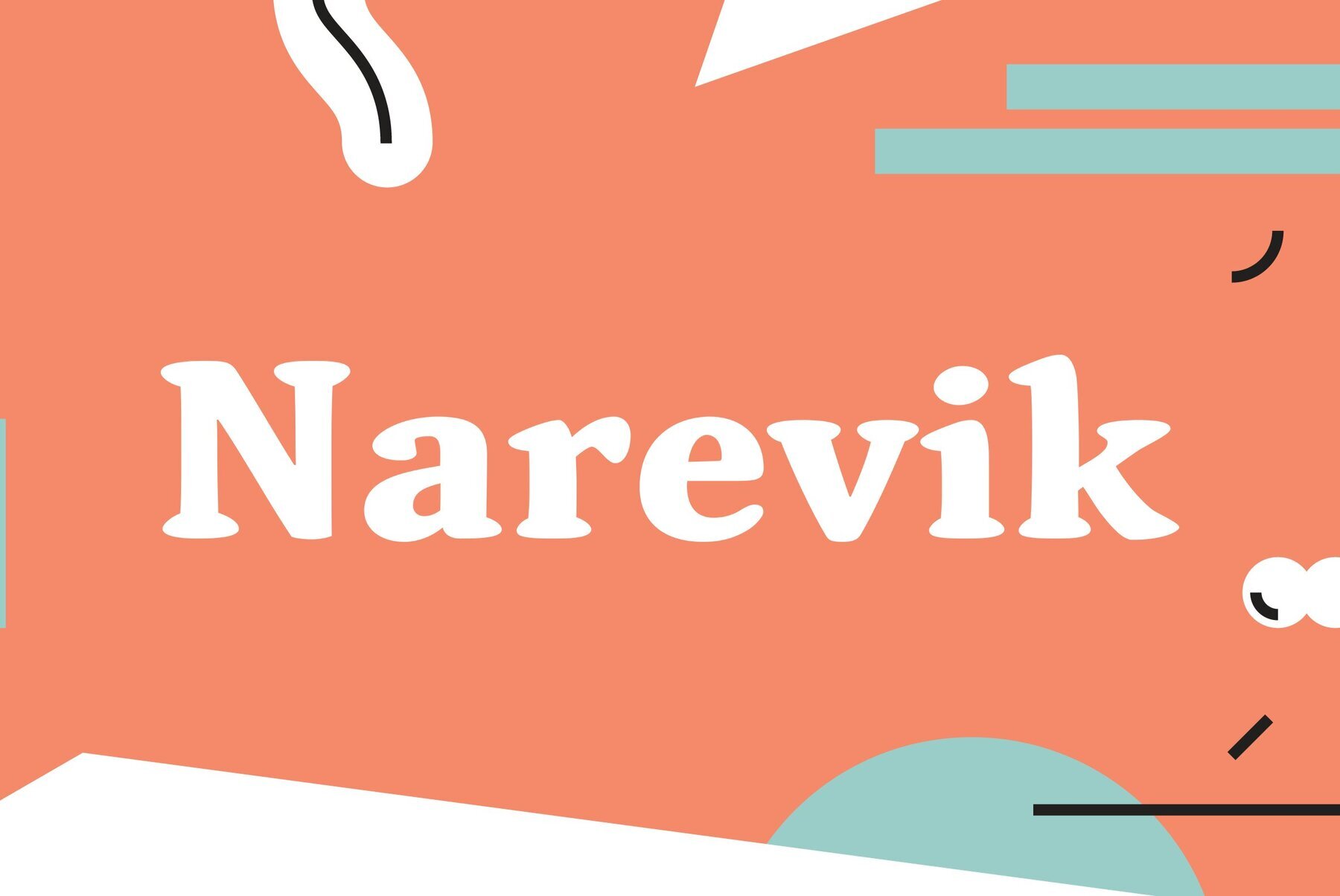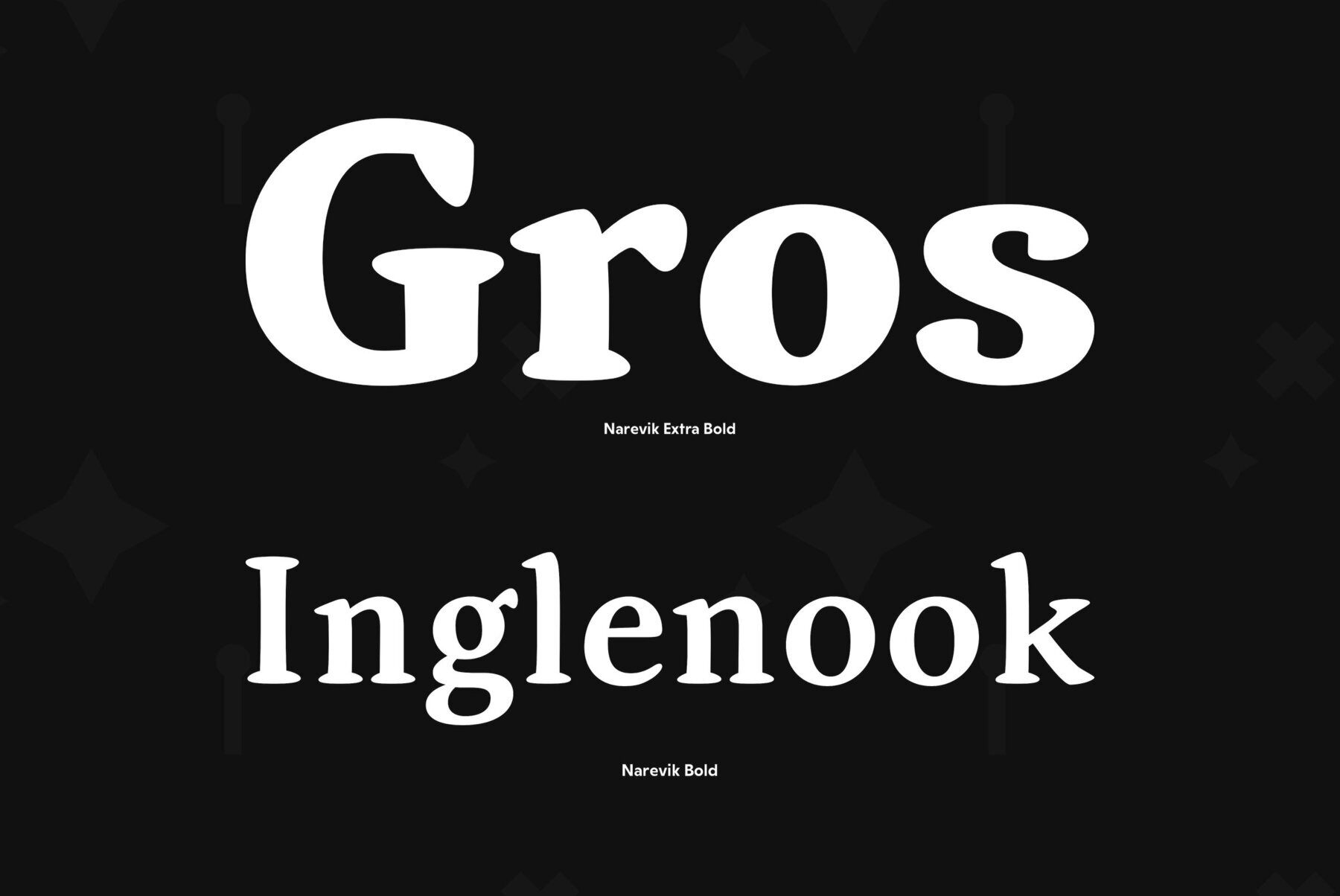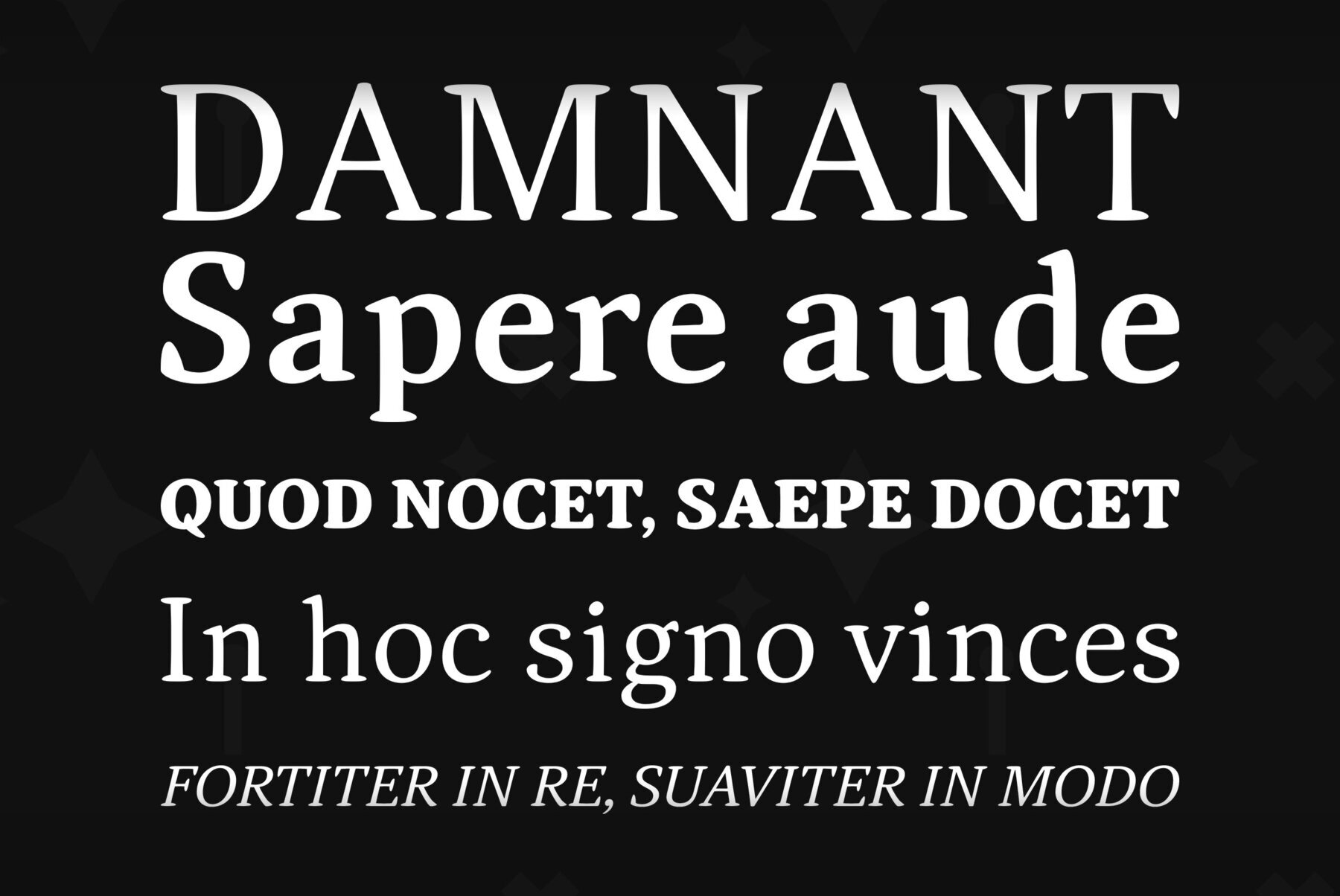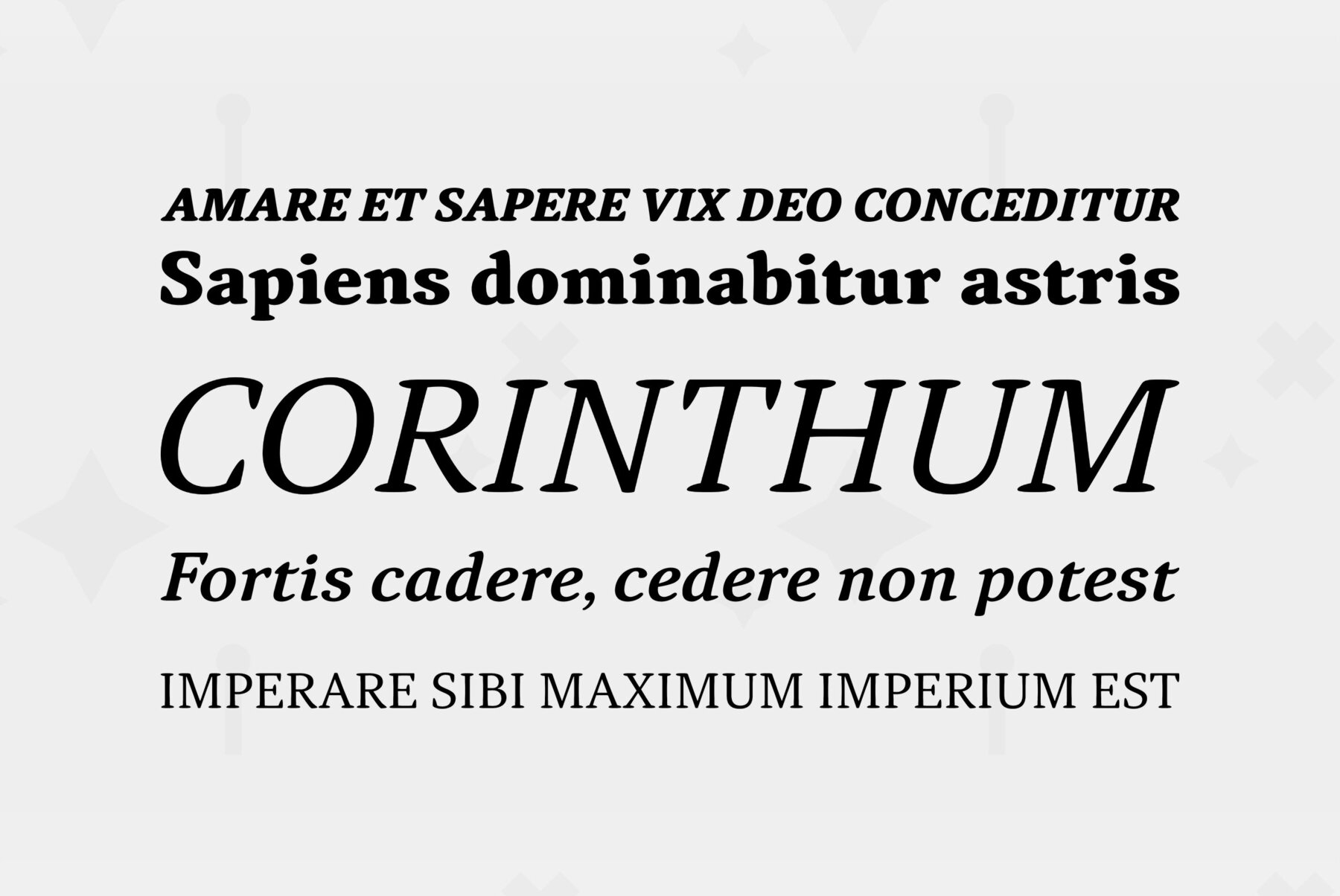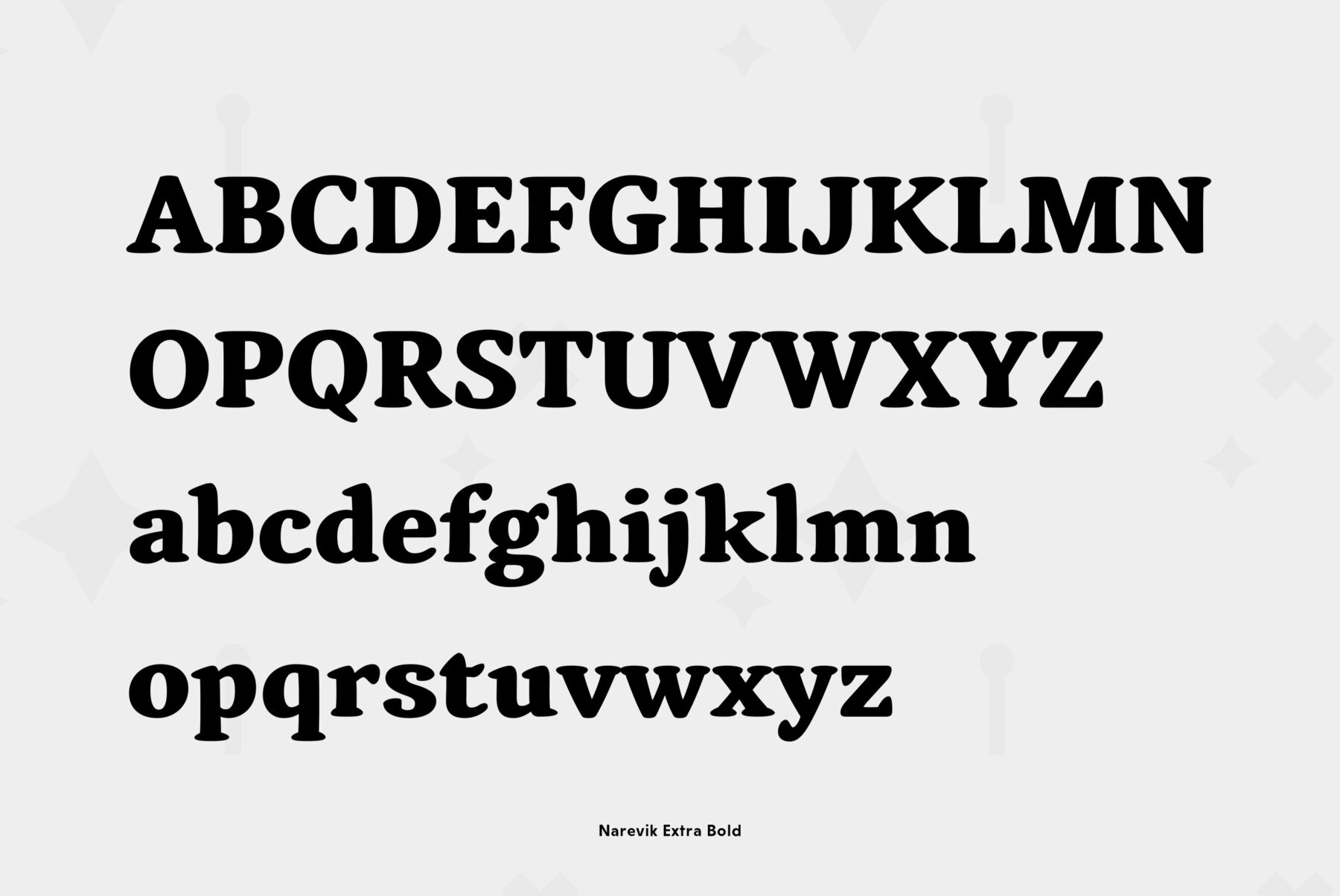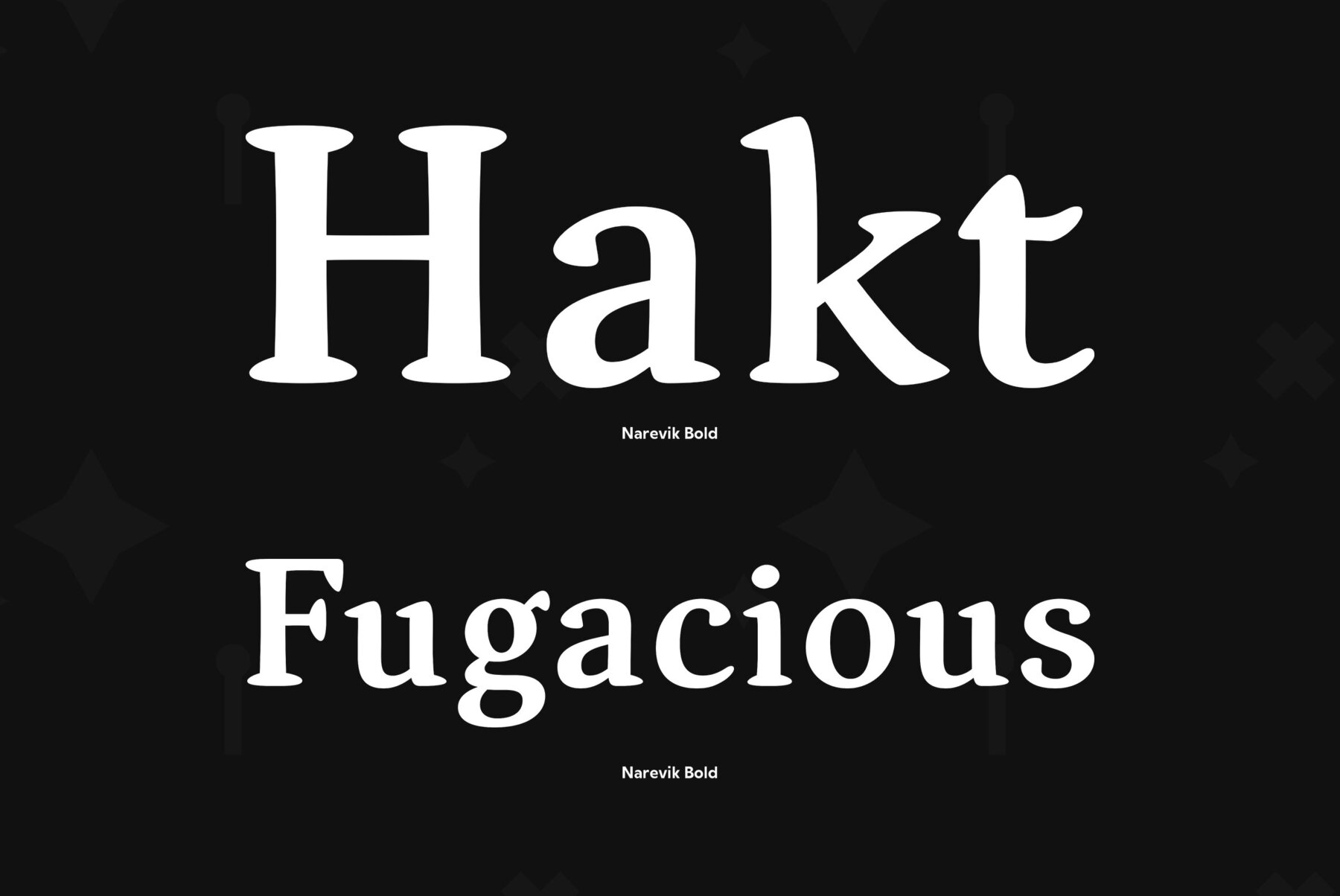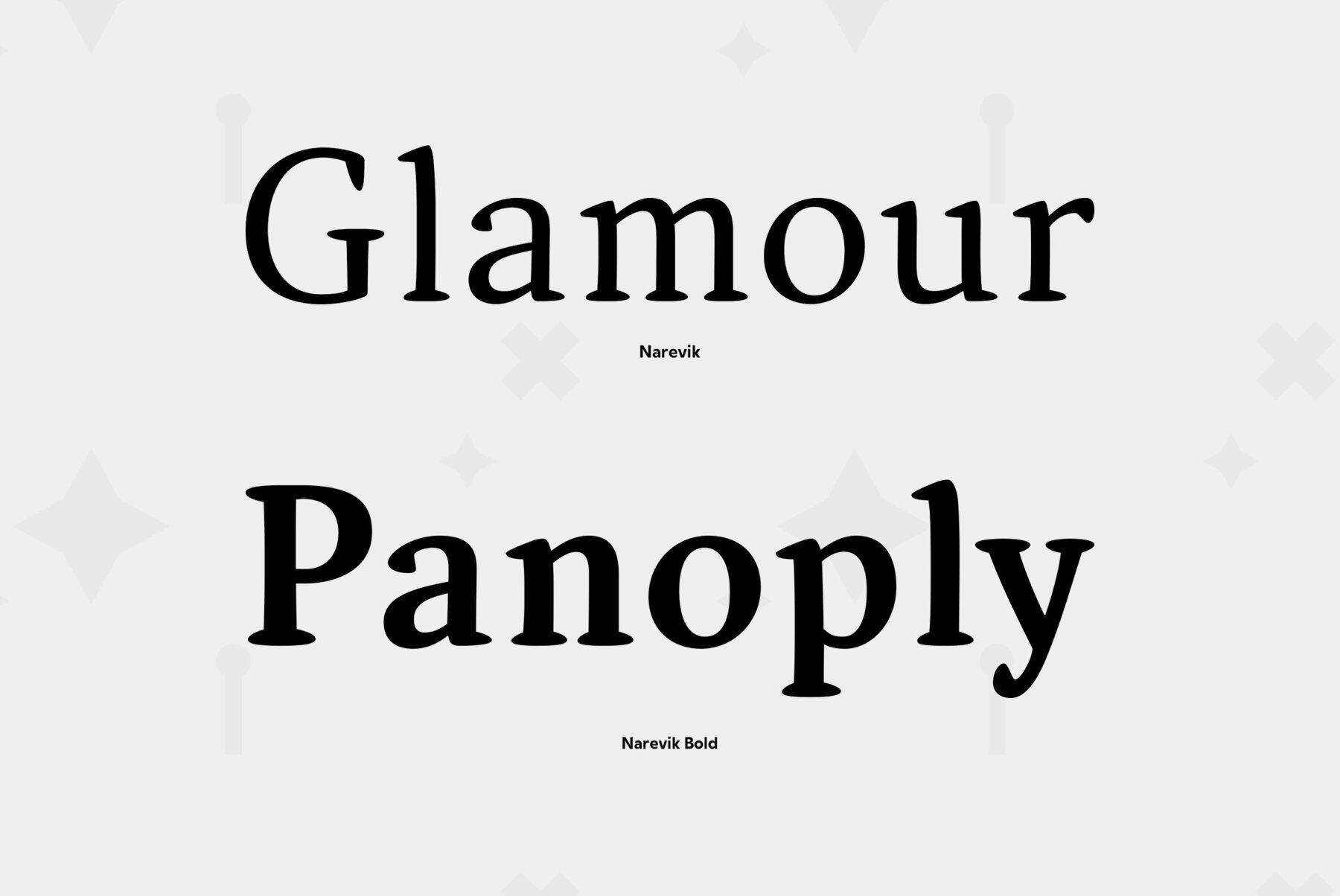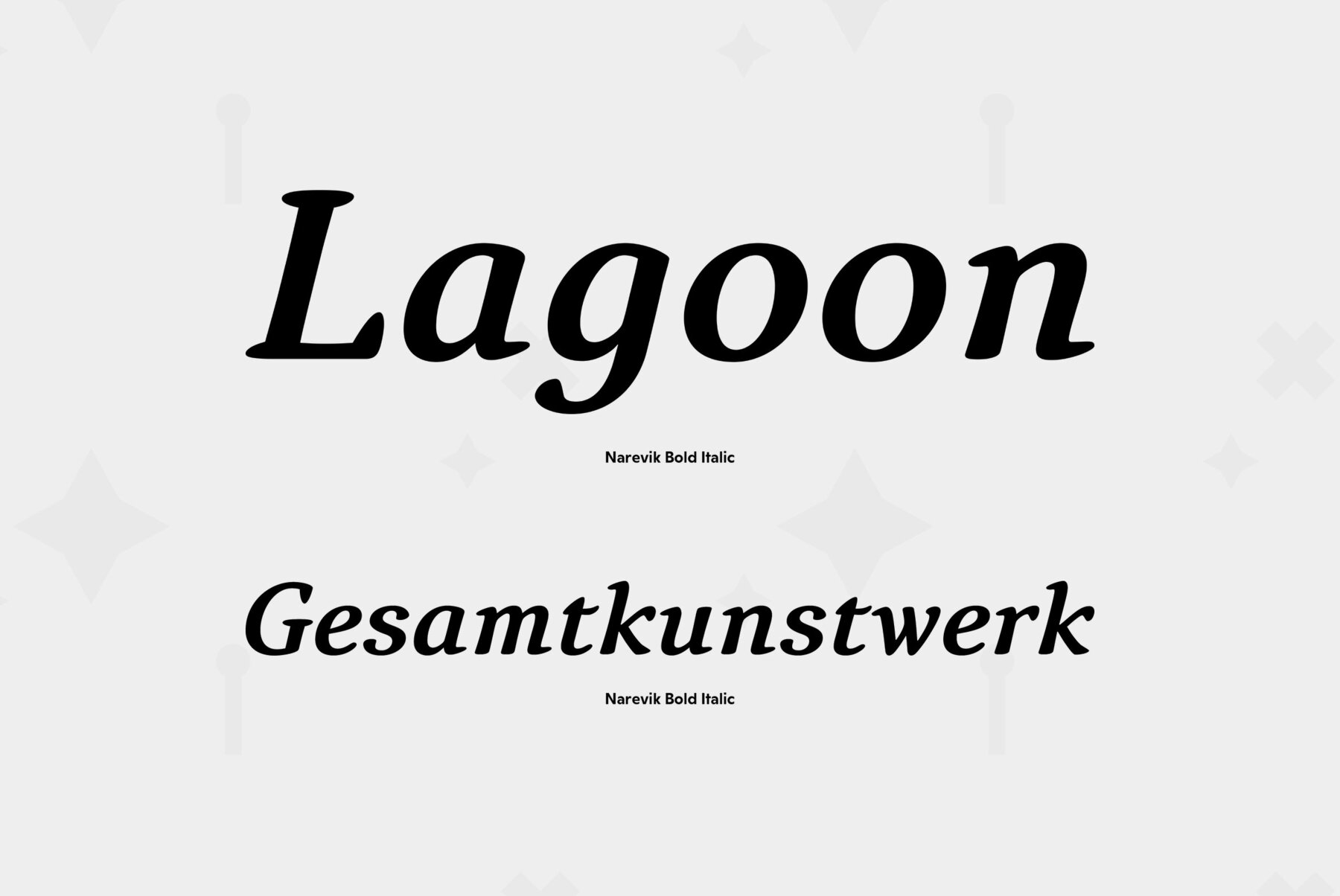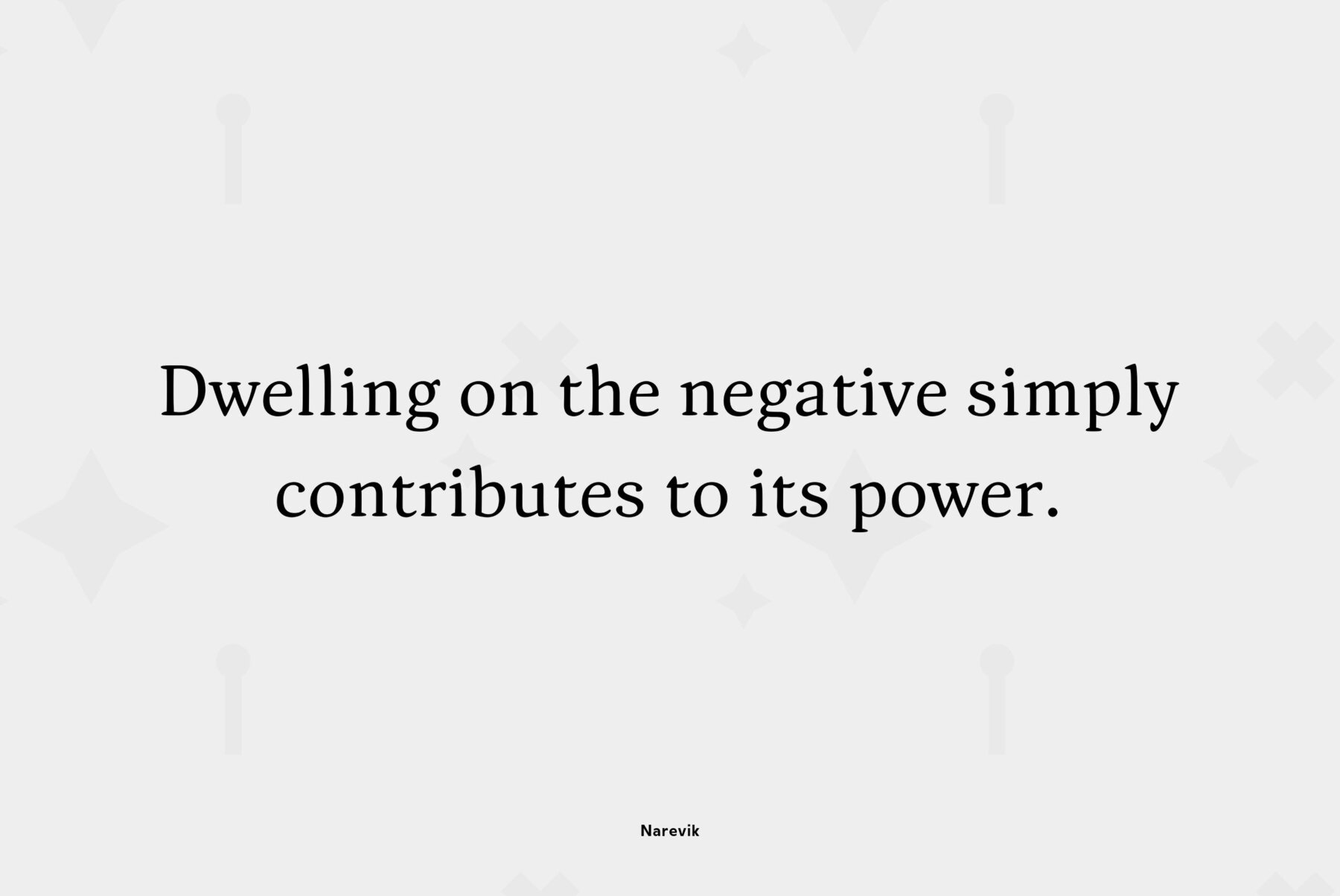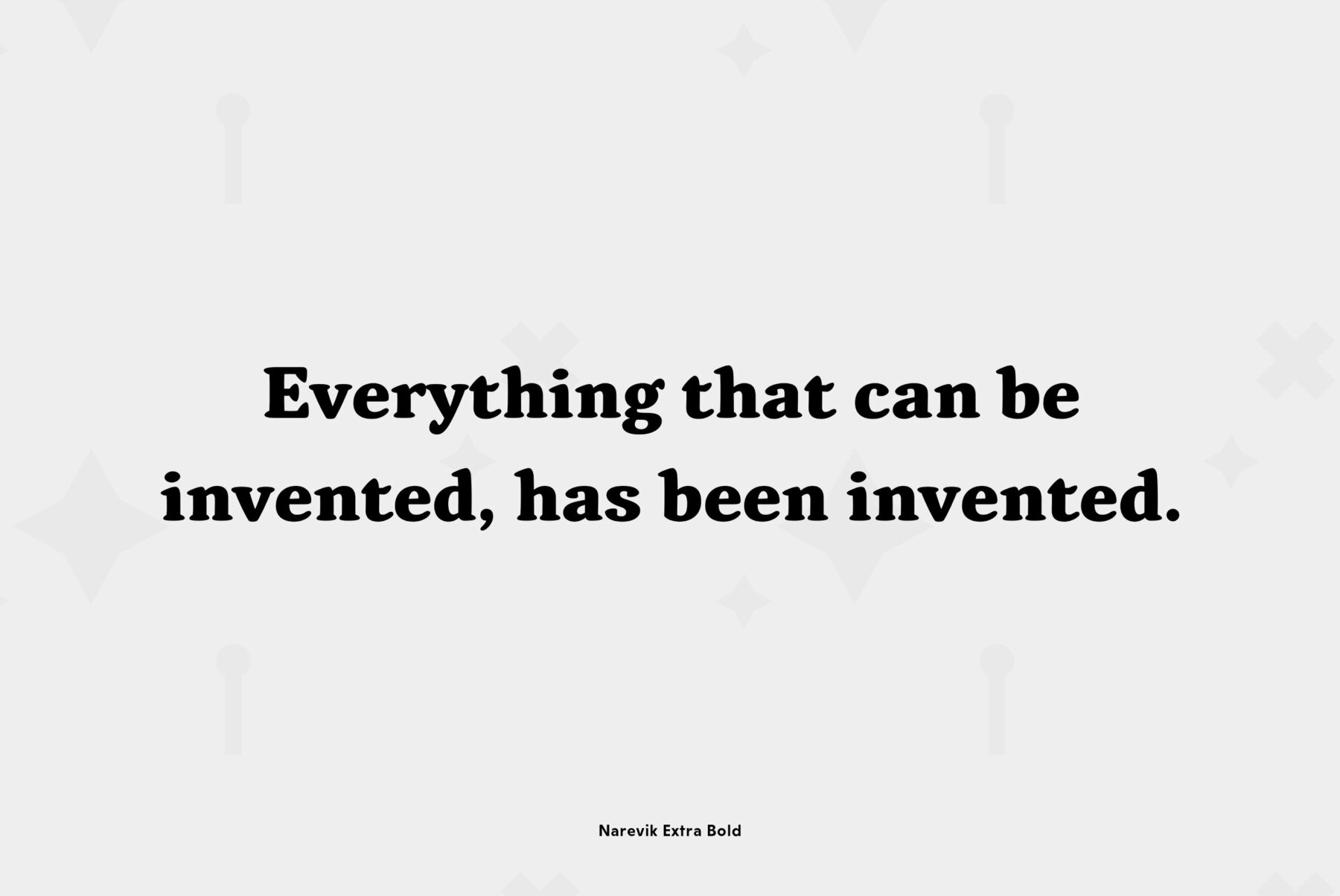
Narevik
Typeface family Narevik consists of 7 styles -- 4 uprights (including black) and 3 italics. It’s a type of dynamic low contrast design with slightly rounded triangle serifs and drops which conveys to it a certain peculiarity. The vertical strokes have gentle intasis that brings additional softness to the shapes. The family was created by Armenian designer Manvel Shmavonyan and got its name after his daughters Nare and Arevik. It can be used in text composition as well as in display matters. Released by ParaType in 2011.